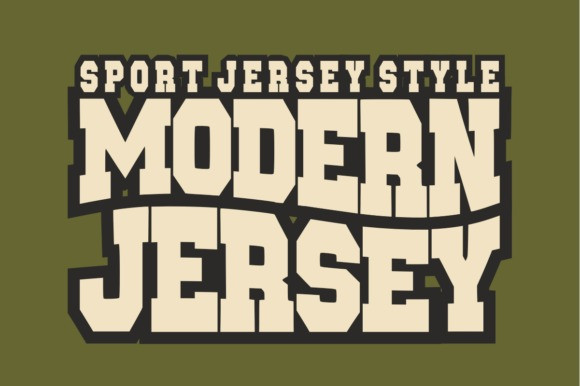
Modern Jersey Font
Modern Jersey Font a powerful slab-serif display typeface built for impact.
This Modern Jersey typeface features a heavy, blocked structure with an arched baseline, perfectly capturing the aesthetic of professional athletic apparel. The Modern Jersey font is indispensable for sports team branding, esports logos, and university-themed merchandise. With its solid, uncompromising presence, the Modern Jersey typeface ensures your headlines command attention and evoke a sense of strength, competition, and team spirit.